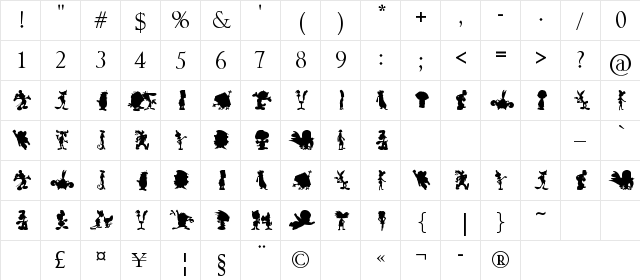
Cartoon Silhouettes Regular
Design Context for Cartoon Silhouettes Typeface
Cartoon Silhouettes trades formality for fun, with bouncy, characterful letterforms that bring warmth and energy to any project.
Font Pairing: Pairs well with a rounded or humanist sans for body copy, maintaining the friendly tone without relying on Cartoon Silhouettes to carry extended reading.
Pro Tip: Use Cartoon Silhouettes at larger display sizes where its expressive character can land. Pair with a clean, simple sans for body copy to maintain readability.